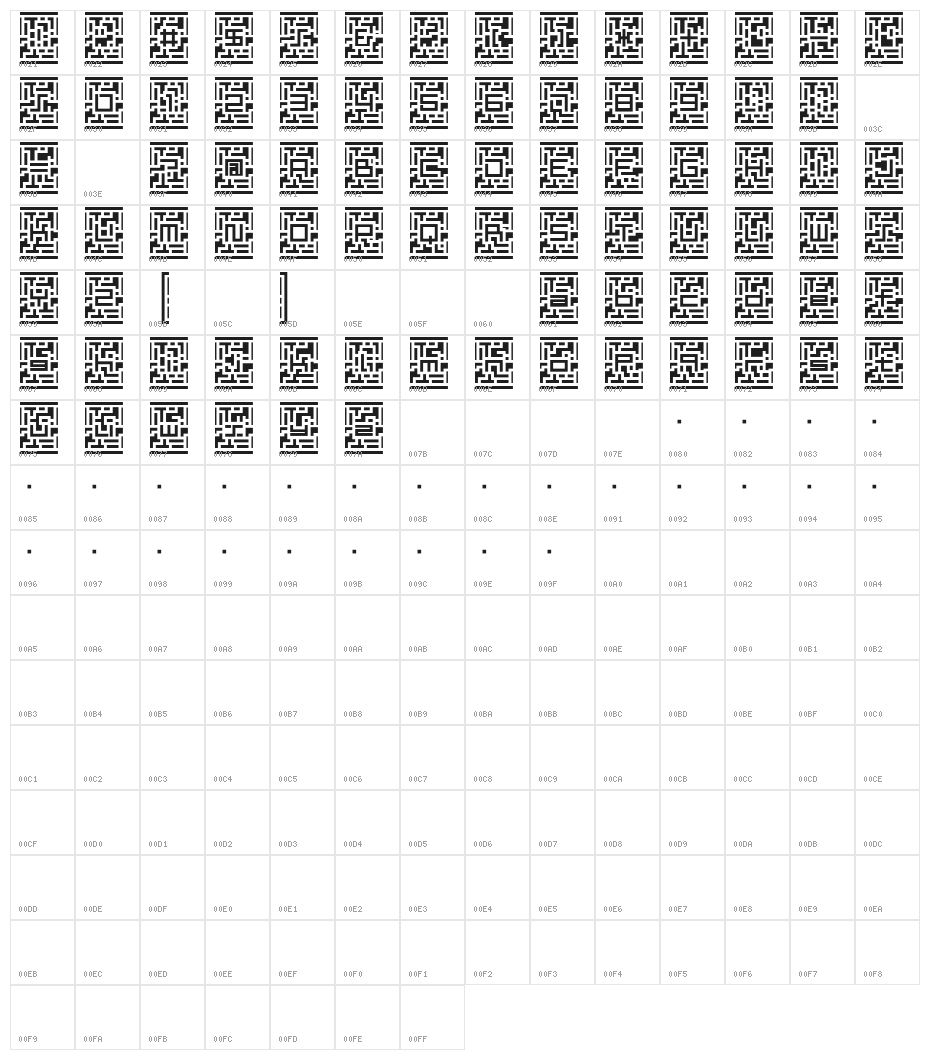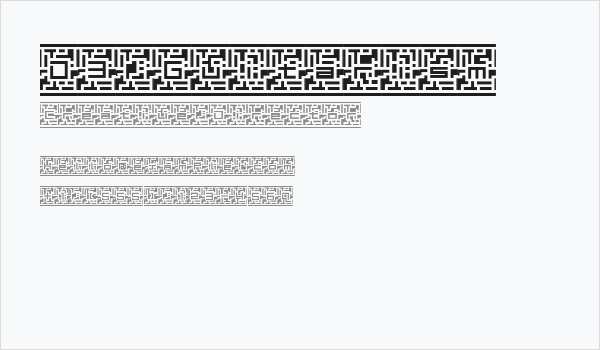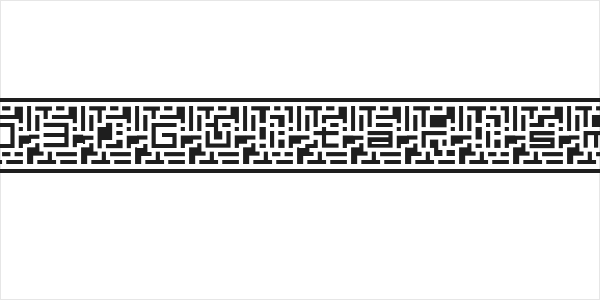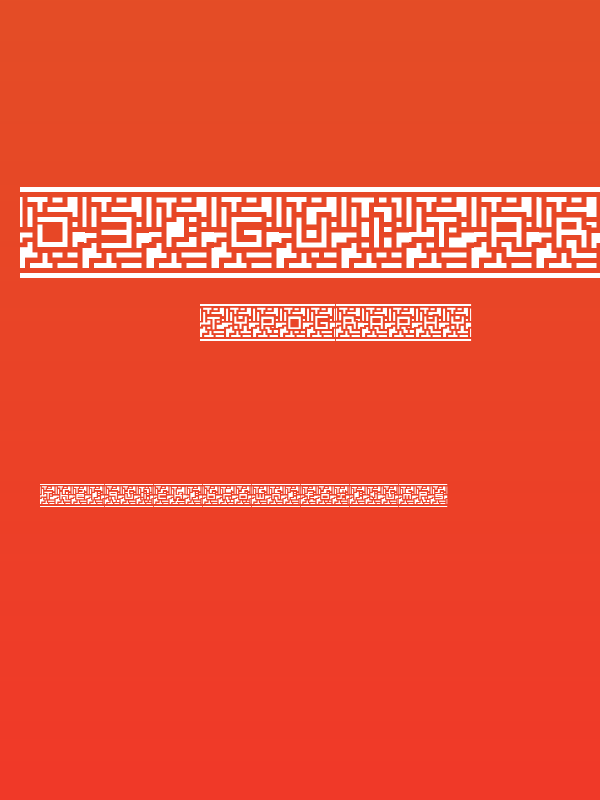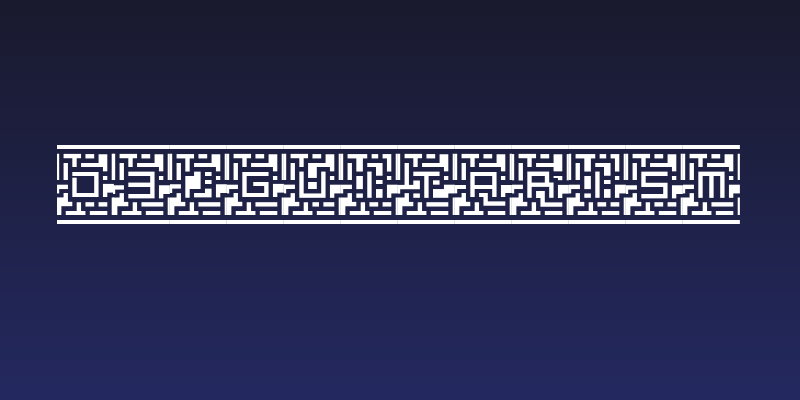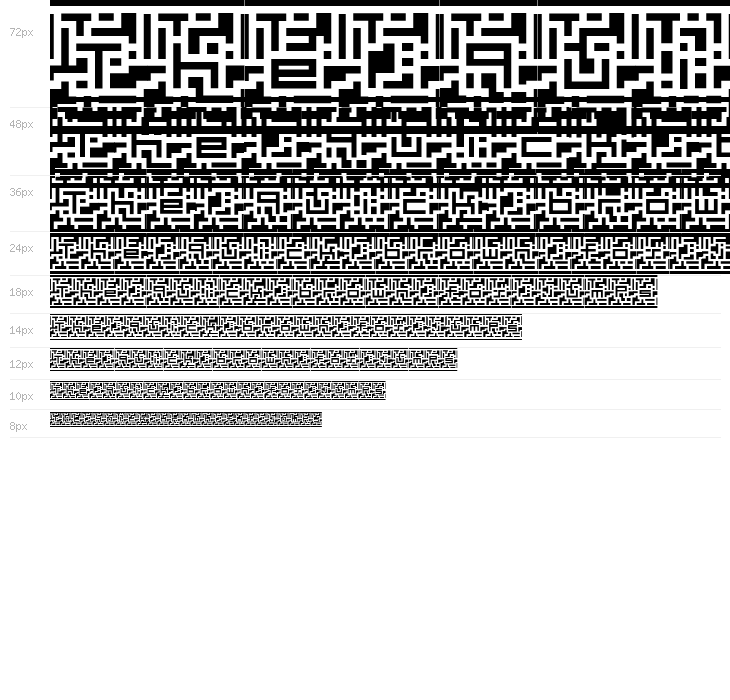
D3 Guitarism Font
D3 Guitarism Description
This font features a highly decorative and intricate design, resembling a maze or circuit board pattern. Each character is composed of a series of interconnected lines and shapes, creating a complex and visually engaging appearance. The style is bold and striking, making it suitable for eye-catching designs. The characters are uniform in width, with a consistent pattern throughout, providing a cohesive look. The font's unique style makes it ideal for projects that require a futuristic or technological aesthetic.
| Overall Style | Futuristic, Decorative |
| Use Case | Logos, Posters, Album Covers |
| Proposed Projects | Ideal for use in technology-themed posters, album covers, video game graphics, or any project requiring a futuristic and complex visual style. |